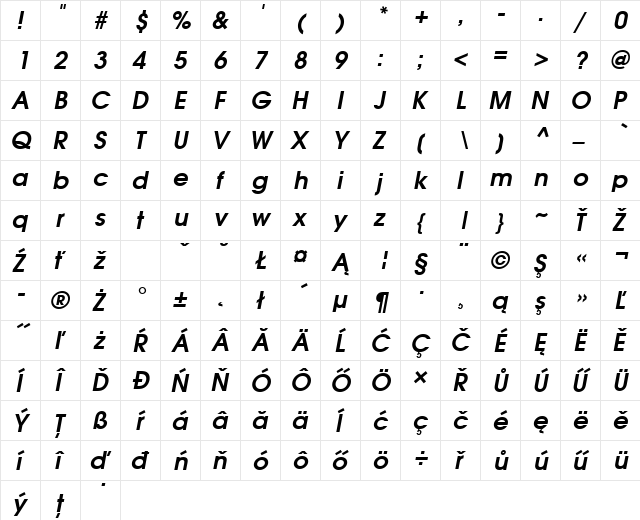
AvantGarGotItcLEE Bold Italic Font Preview
AvantGarGotItcLEE Bold Italic
AvantGarGotItcLEE Bold Italic Font Details
Design Context for AvantGarGotItcLEE Typeface
AvantGarGotItcLEE takes a measured approach to typography — its balanced proportions and neutral character make it a reliable workhorse for both digital and print work. Its italic angle brings a sense of urgency and motion to the letterforms. Its bold stroke weight gives it real presence on the page.
Pro Tip: Use AvantGarGotItcLEE for emphasis, pull quotes, and subheadings where its slanted energy can add rhythm to the layout.